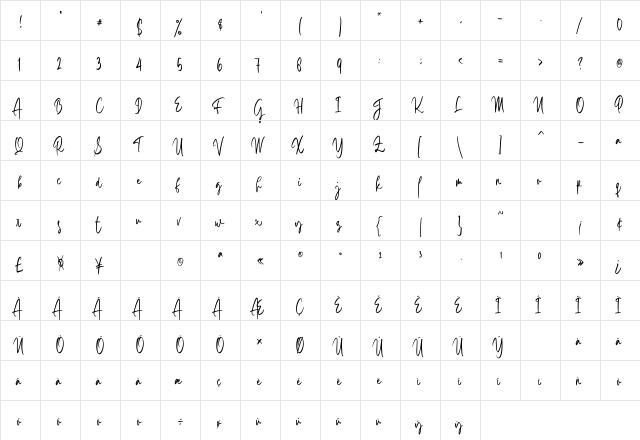
Aesslhine Regular
| Designer | Colllab Studio Team |
Design Context for Aesslhine Typeface
Aesslhine takes a measured approach to typography — its balanced proportions and neutral character make it a reliable workhorse for both digital and print work.